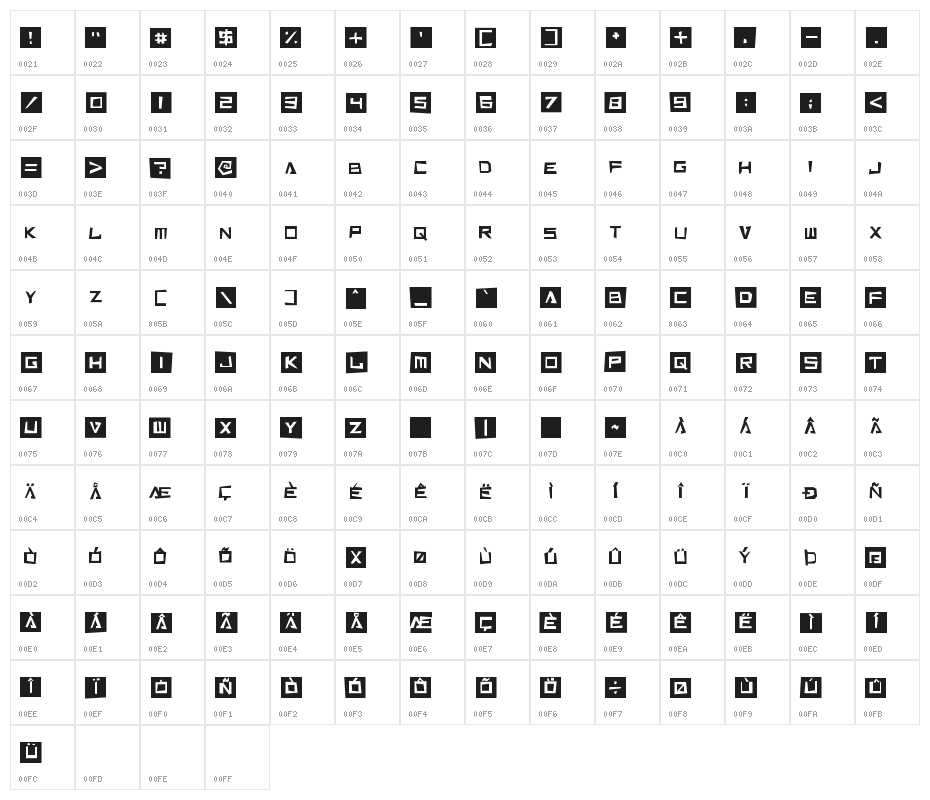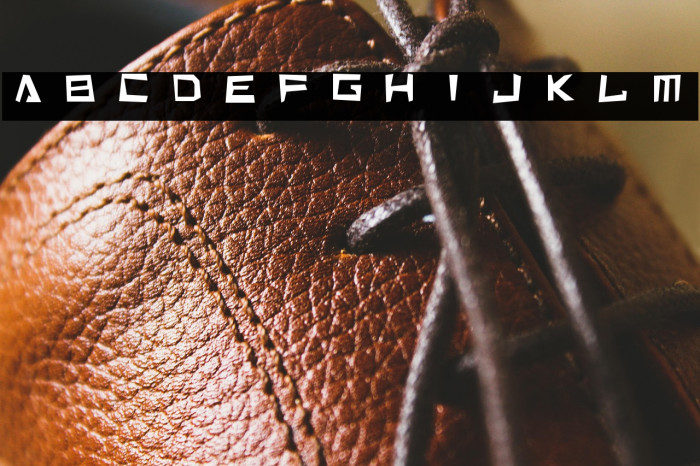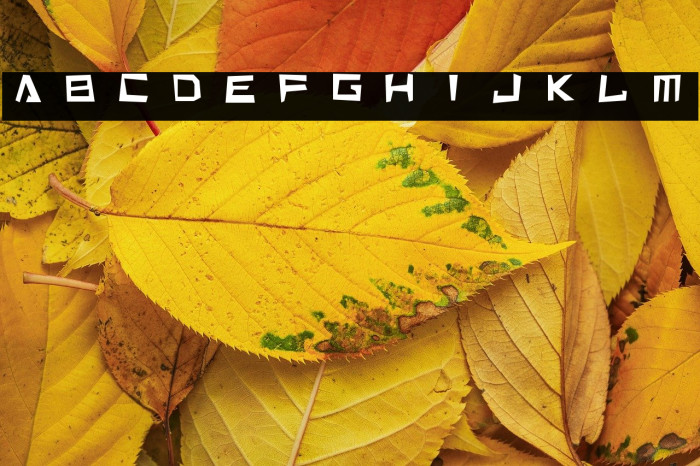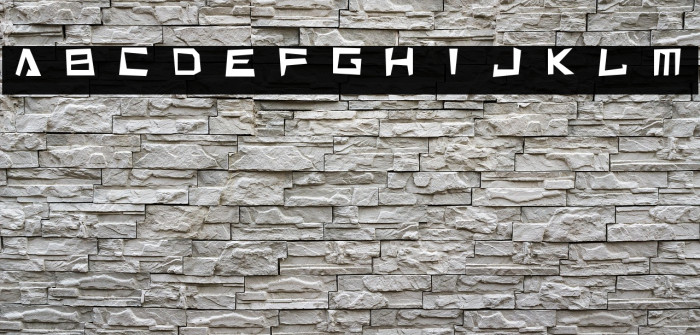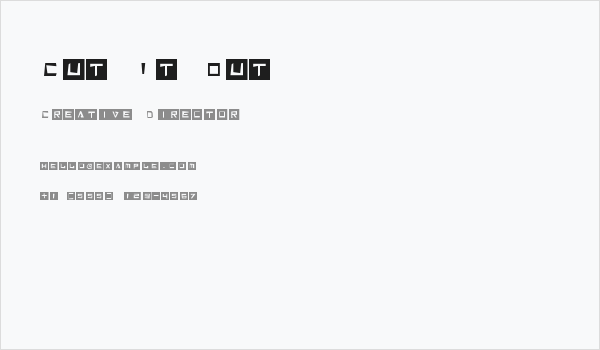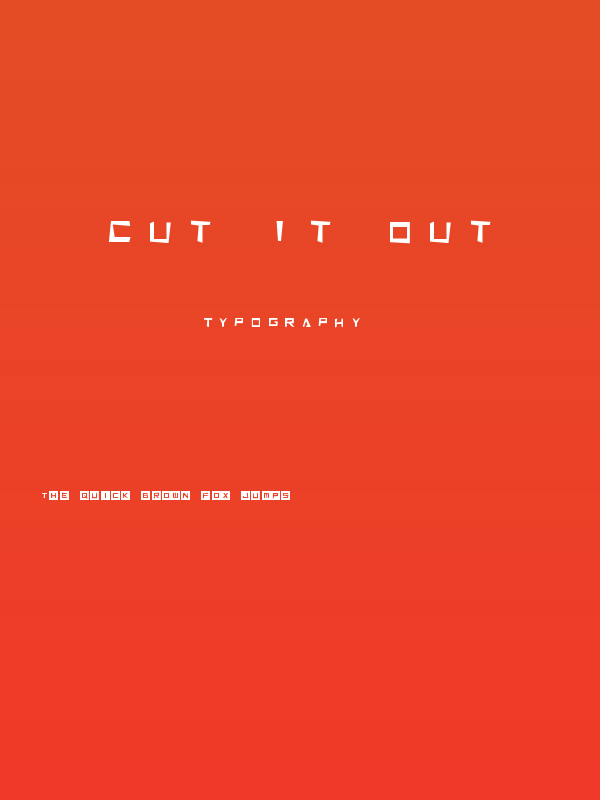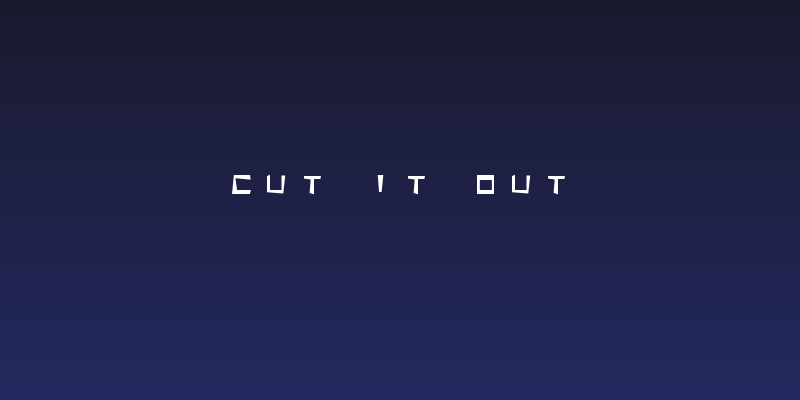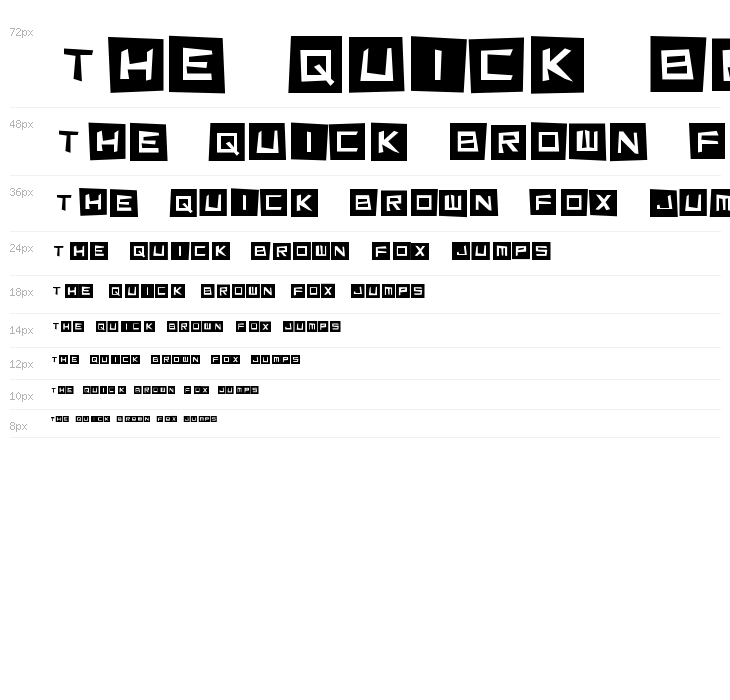
Cut It Out Font
Cut It Out Description
This font features a playful and edgy design, reminiscent of cut-out letters from magazines or newspapers. Each character appears as if it has been manually cut with scissors, giving it a unique and irregular shape. The letters are bold and stand out against their backgrounds, making them highly visible and attention-grabbing. The font includes both uppercase and lowercase letters, numbers, and a variety of special characters. Its quirky and unconventional style makes it suitable for creative and artistic projects that require a distinctive and informal look.
| Proposed Projects | Ideal for creative projects like posters, flyers, album covers, and children's book illustrations. |